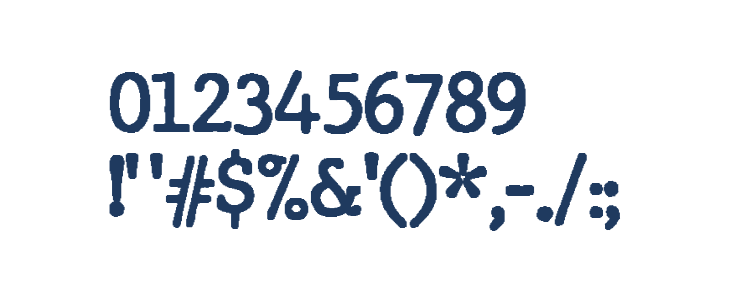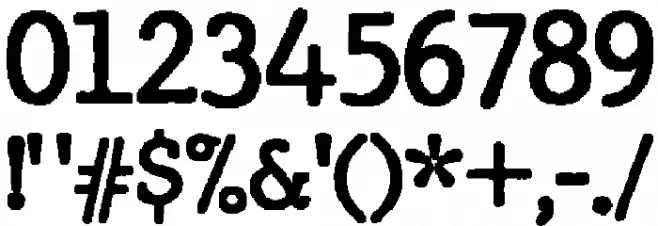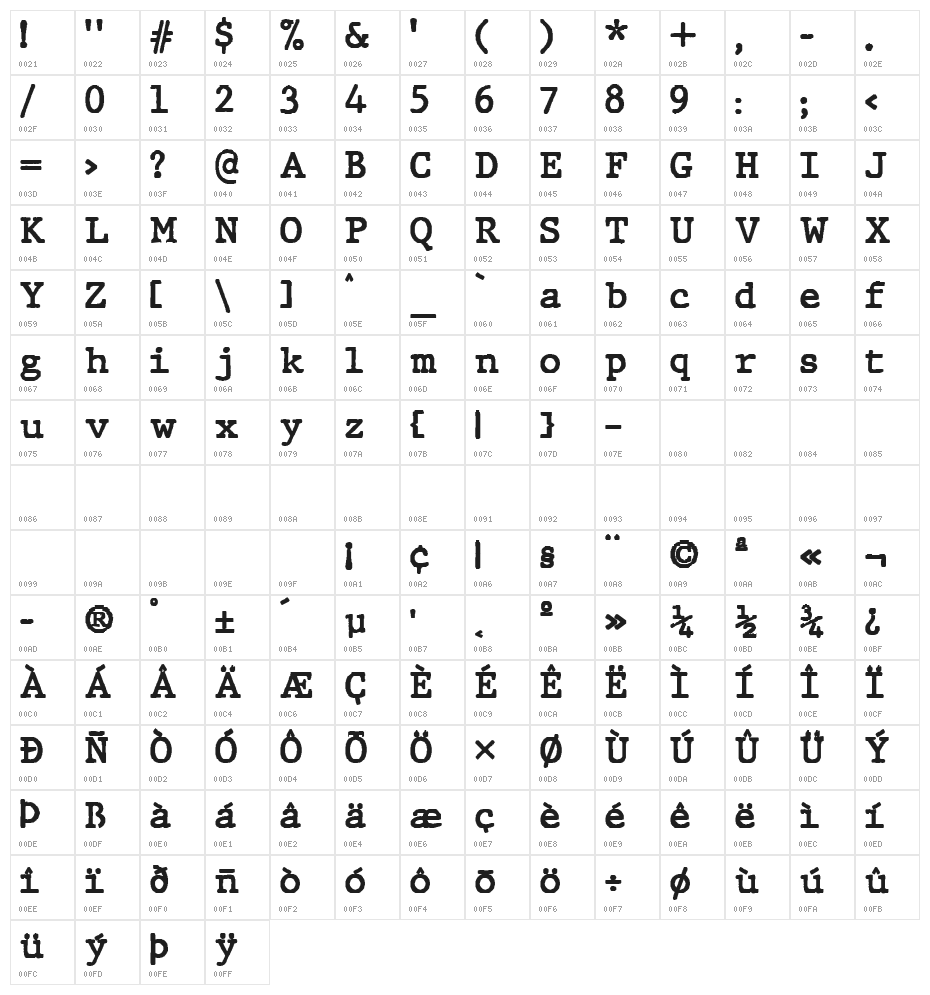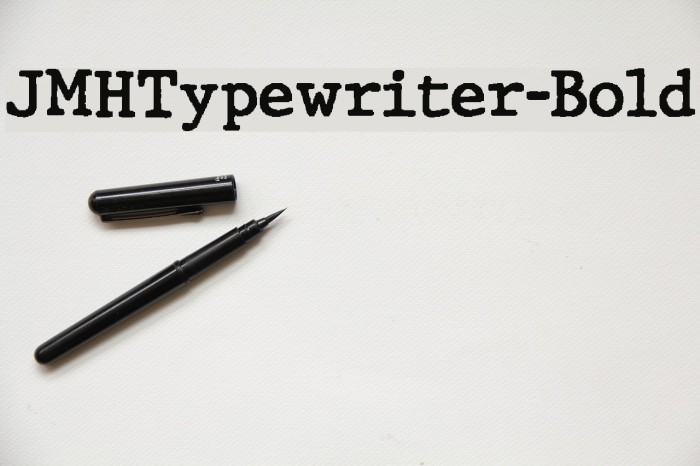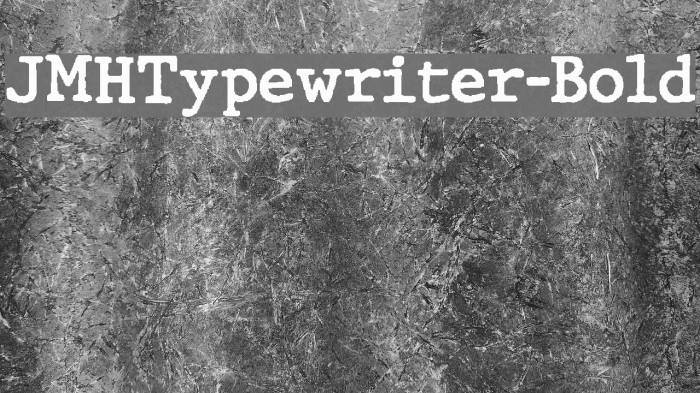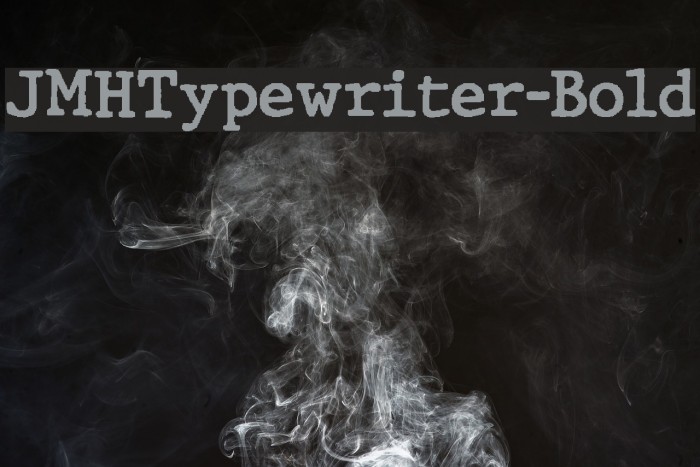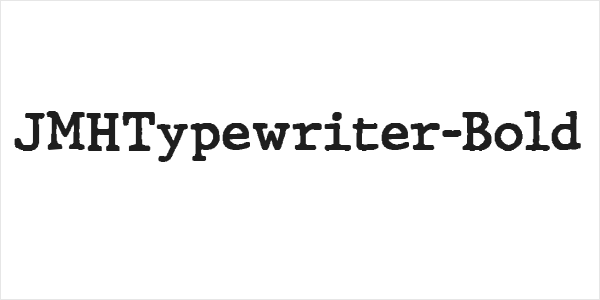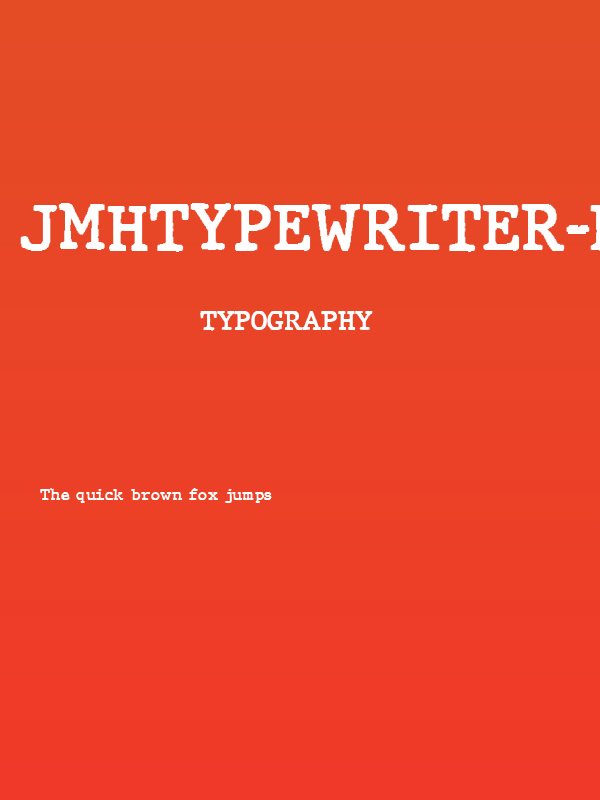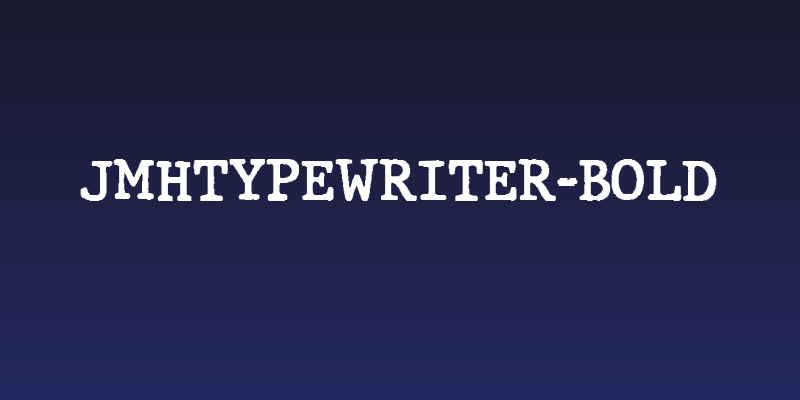
JMHTypewriter-Bold Font
JMHTypewriter-Bold Description
This font exudes a classic typewriter aesthetic with bold, rounded characters that evoke a sense of nostalgia. The uniformity in letter height and width is reminiscent of traditional typewriter fonts, offering a monospaced appearance that ensures each character occupies the same amount of horizontal space. The boldness of the strokes adds a modern twist, making it suitable for both vintage and contemporary designs. The font's distinct, slightly irregular edges give it a handcrafted feel, enhancing its charm and readability. It's perfect for projects that require a touch of retro flair while maintaining clarity and impact.
| Proposed Projects | Ideal for vintage-themed designs, typewriter art, retro posters, and branding that requires a nostalgic touch. |